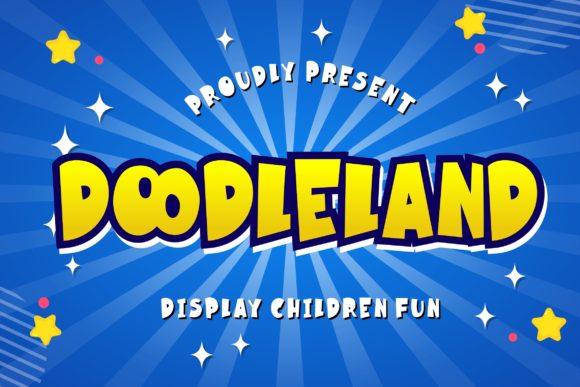
Doodleland Font: The Ultimate Choice for Kindergarten and Children’s Events
Are you looking for a font that can add a touch of fun and playfulness to your designs? Look no further than the Doodleland Font. This chunky lettered font is perfect for kindergarten and children’s events, and is sure to make your designs come alive. In this article, we’ll take a closer look at the Doodleland Font, its features, and how you can use it to create engaging and effective designs.
What is Doodleland Font?
Doodleland Font is a fun display font that is specifically designed for use in kindergarten and children’s events. It features chunky letters with a playful and whimsical feel, making it perfect for designs that need to appeal to a young audience. The font is highly versatile and can be used for a wide range of design projects, from posters and flyers to invitations and social media graphics.
Benefits of Using Doodleland Font
There are many benefits to using Doodleland Font in your designs. Here are just a few:
- Perfect for kids’ designs: The Doodleland Font is specifically designed with kids in mind, making it perfect for designs that need to appeal to a young audience.
- Easy to read: The chunky letters in the Doodleland Font make it easy to read, even from a distance.
- Highly versatile: The Doodleland Font can be used for a wide range of design projects, from posters and flyers to invitations and social media graphics.
- PUA encoded: The Doodleland Font is PUA encoded, which means you can access all of the glyphs and swashes with ease.
Features of Doodleland Font
The Doodleland Font has a range of features that make it perfect for use in kindergarten and children’s events. Here are some of the key features:
- Chunky letters: The Doodleland Font features chunky letters with a playful and whimsical feel.
- PUA encoding: The font is PUA encoded, which means you can access all of the glyphs and swashes with ease.
- Glyphs and swashes: The Doodleland Font includes a range of glyphs and swashes that you can use to add extra flair to your designs.
Design Tips for Using Doodleland Font
Here are some design tips for using the Doodleland Font:
- Use it for headings: The Doodleland Font is perfect for use in headings and titles, where its chunky letters can really make an impact.
- Pair it with other fonts: The Doodleland Font can be paired with other fonts to create a really unique and eye-catching design.
- Use it in color: The Doodleland Font looks great in color, so don’t be afraid to experiment with different colors and combinations.
Uses for Doodleland Font
The Doodleland Font is highly versatile and can be used for a wide range of design projects. Here are some ideas:
- Kids’ party invitations: The Doodleland Font is perfect for kids’ party invitations, where its playful and whimsical feel can really add to the excitement.
- Posters and flyers: The font is great for use in posters and flyers, where its chunky letters can really grab attention.
- Social media graphics: The Doodleland Font can be used to create engaging and effective social media graphics that are sure to stand out.
The Doodleland Font is a fun and playful font that is perfect for kindergarten and children’s events. Its chunky letters and PUA encoding make it easy to use and highly versatile. Whether you’re creating posters, flyers, invitations, or social media graphics, the Doodleland Font is sure to make your designs come alive.